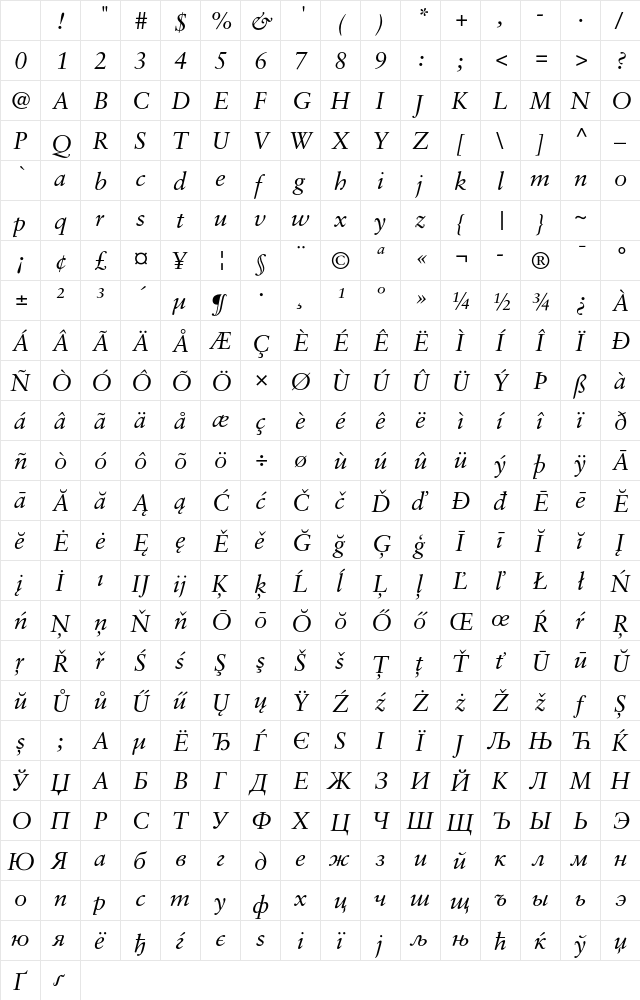
Complete Korinthia Italic glyph index. Displaying only characters natively supported by Korinthia Italic font.
Korinthia is a composed and adaptable typeface that performs quietly and consistently across a wide range of design contexts. The slanted form adds forward momentum and visual energy.
Pro Tip: Use Korinthia for emphasis, pull quotes, and subheadings where its slanted energy can add rhythm to the layout.